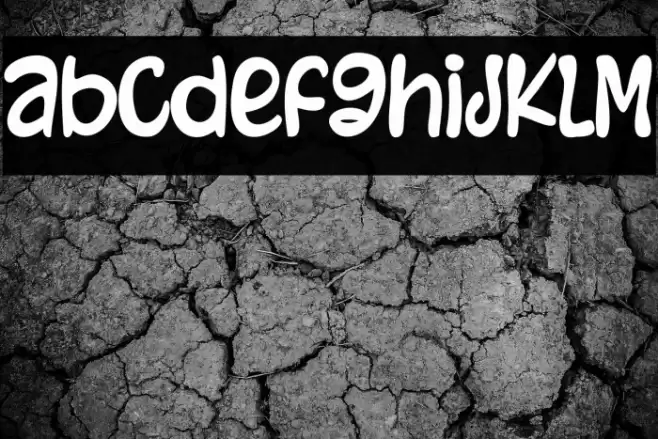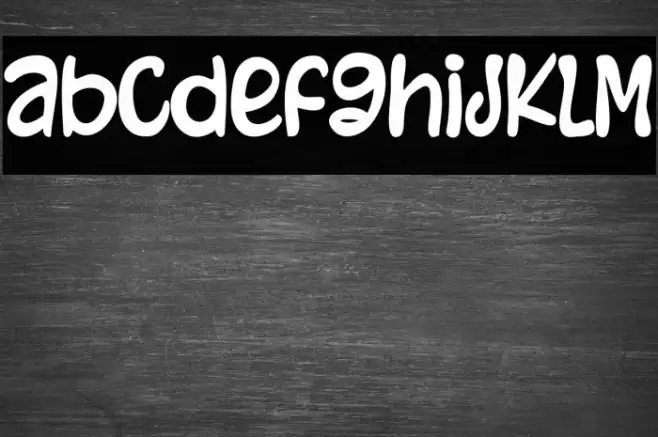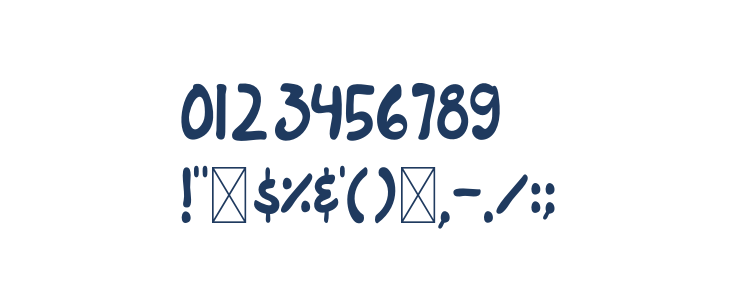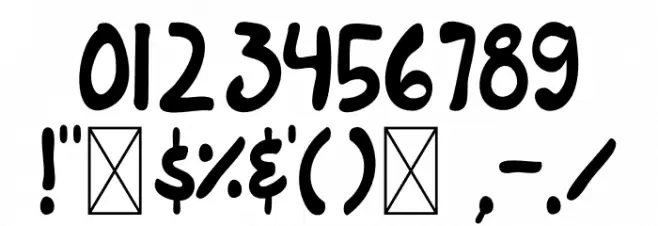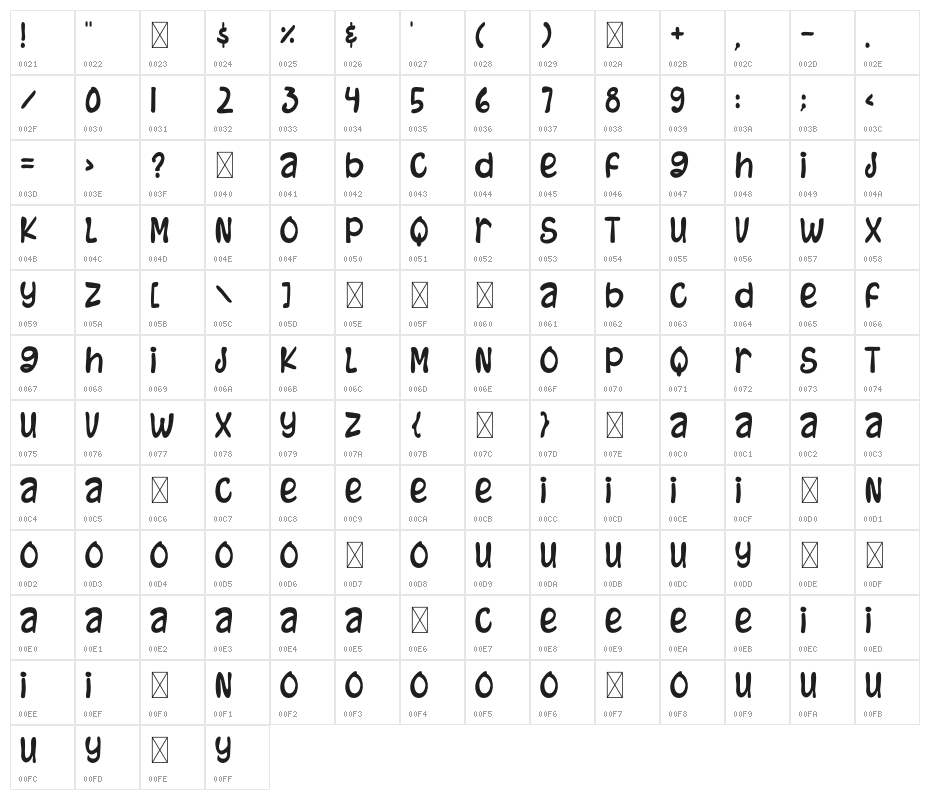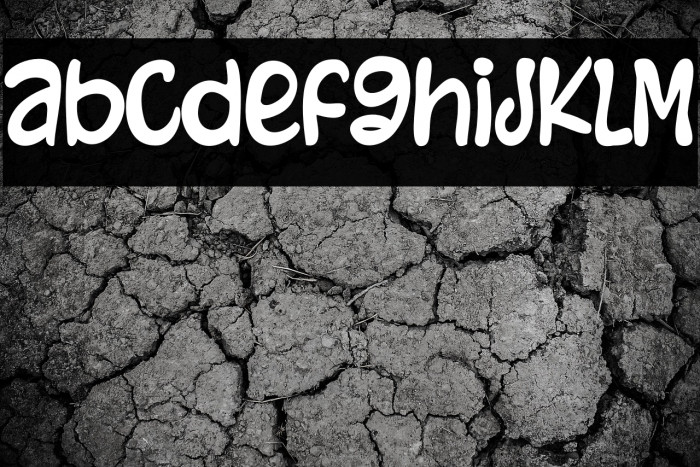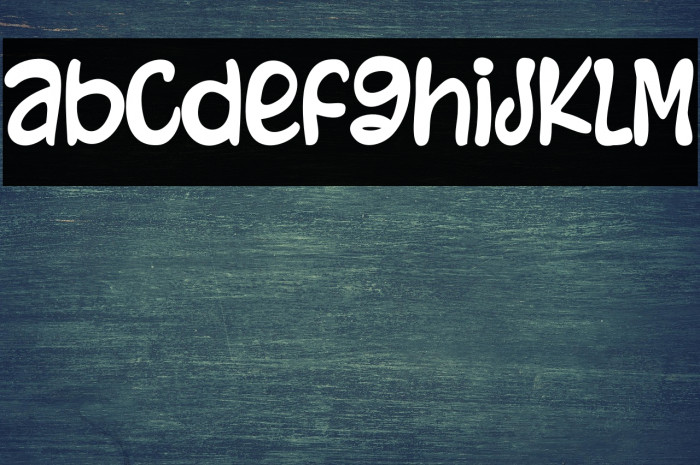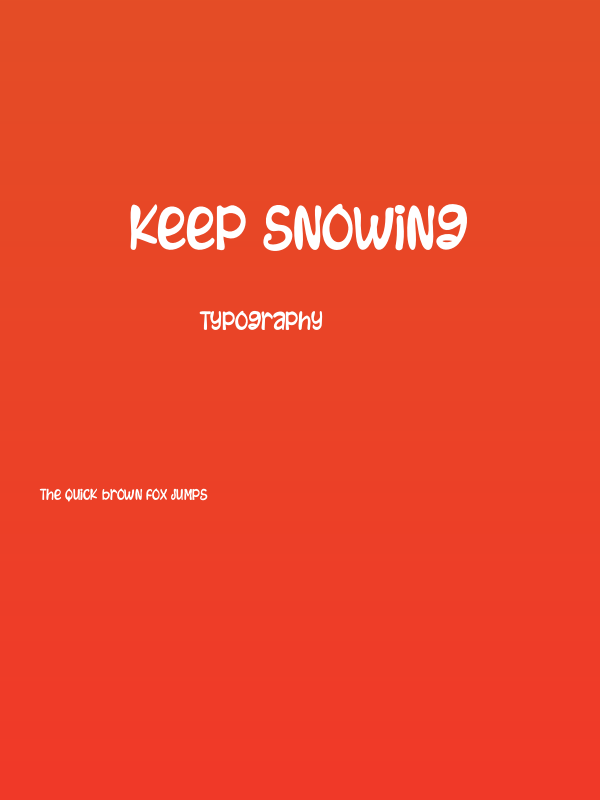
Keep Snowing Font
Keep Snowing Description
This playful and whimsical font features rounded, bubbly characters that convey a sense of fun and creativity. The letters are bold and slightly irregular, giving them a hand-drawn appearance. The font maintains a consistent thickness throughout each character, contributing to its friendly and approachable style. The numbers and special characters are designed to match the playful aesthetic, making this font suitable for a variety of creative projects. Its unique style makes it stand out, perfect for capturing attention in designs that require a touch of personality.
A playful, bubbly font with a hand-drawn, whimsical style from Uncategorized fonts.
- Font: Keep Snowing
- Proposed Projects: Ideal for children's books, playful branding, party invitations, and creative posters.
- Overall Style: Playful, Whimsical
Keep Snowing UPPERCASE
Keep Snowing LOWERCASE
Keep Snowing OTHER CHARS